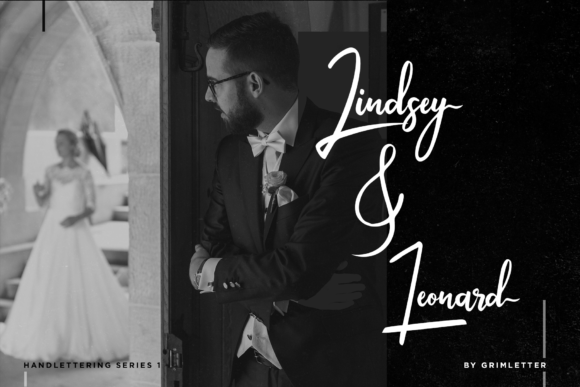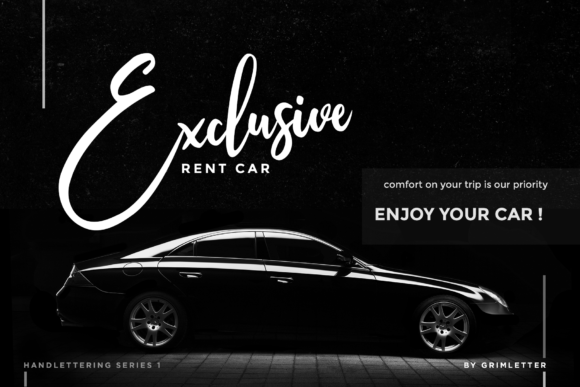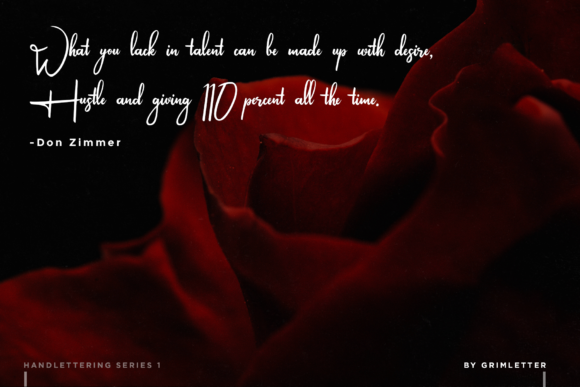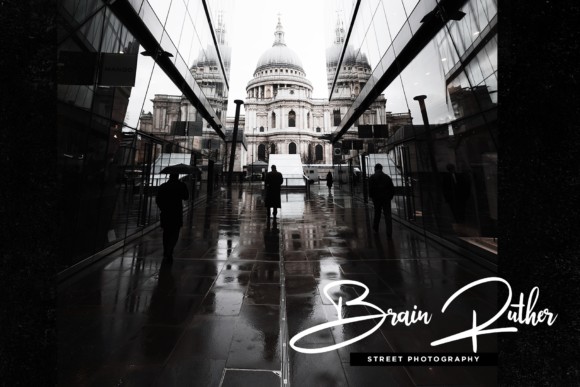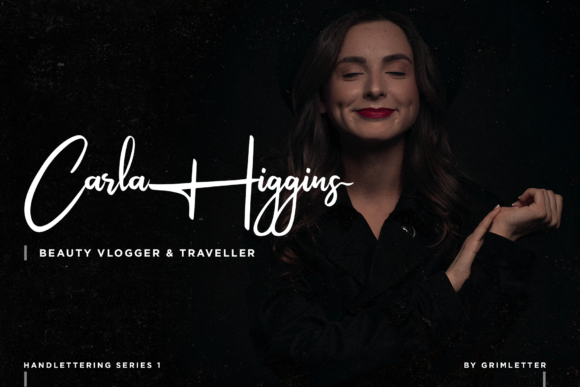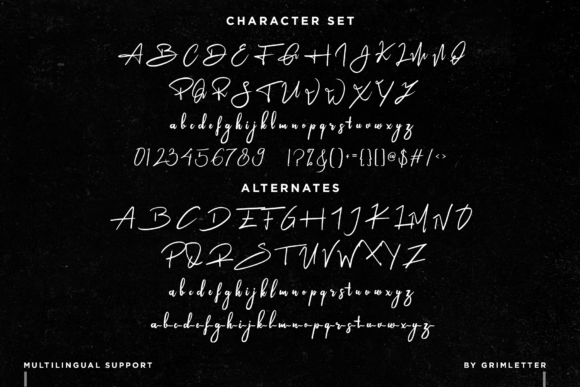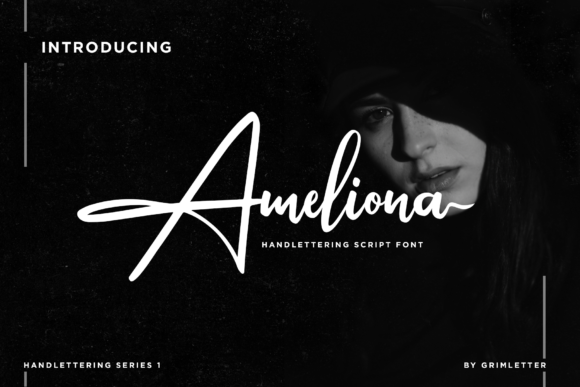
Introducing Ameliona Font: The Perfect Handwritten Touch for Your Designs
Are you looking for a font that exudes charm and elegance? Look no further than Ameliona Font. This beautiful handwritten font is perfect for adding a personal touch to your designs, making it ideal for wedding invitations, thank you cards, quotes, greeting cards, logos, business cards, and more.
A Font that Combines Charm and Elegance
Ameliona Font is a stunning script font that feels equally charming and elegant. Its unique and beautiful design makes it perfect for a wide range of design projects. Whether you’re a designer, crafter, or DIY enthusiast, this font is sure to impress.
Key Features of Ameliona Font
- PUA Encoded: Ameliona Font is PUA encoded, which means you can access all of the glyphs and swashes with ease. This makes it easy to use and customize the font to suit your needs.
- Varying Baseline: The font features a varying baseline, which gives it a natural and handwritten feel.
- Smooth Lines: The lines in Ameliona Font are smooth and flowing, making it perfect for designs that require a elegant touch.
- Gorgeous Glyphs: The font comes with a range of gorgeous glyphs, including stunning alternates that will take your designs to the next level.
Ameliona Font is versatile and can be used for a wide range of design projects, including:
- Wedding Invitations: Add a touch of elegance and romance to your wedding invitations with Ameliona Font.
- Thank You Cards: Show your appreciation with beautifully designed thank you cards featuring Ameliona Font.
- Quotes: Make your quotes stand out with the elegant and charming Ameliona Font.
- Greeting Cards: Create stunning greeting cards for special occasions, such as birthdays, anniversaries, and holidays.
- Logos: Use Ameliona Font to create a unique and memorable logo for your business or brand.
- Business Cards: Add a touch of elegance to your business cards with Ameliona Font.
Why Choose Ameliona Font?
There are many reasons why you should choose Ameliona Font for your design projects. Here are just a few:
- Unique and Elegant Design: Ameliona Font has a unique and elegant design that will make your designs stand out.
- Easy to Use: The font is PUA encoded, making it easy to access all of the glyphs and swashes.
- Versatile: Ameliona Font can be used for a wide range of design projects, from wedding invitations to logos.
- High-Quality: The font is of high quality, with smooth lines and gorgeous glyphs.
In conclusion, Ameliona Font is a beautiful and elegant handwritten font that is perfect for adding a personal touch to your designs. With its unique and charming design, PUA encoding, varying baseline, smooth lines, gorgeous glyphs, and stunning alternates, it’s the perfect choice for designers, crafters, and DIY enthusiasts. Whether you’re looking to create wedding invitations, thank you cards, quotes, greeting cards, logos, business cards, or more, Ameliona Font is the perfect choice.